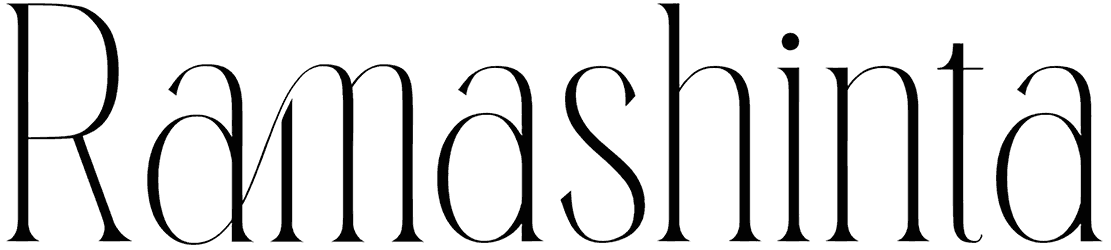
Ramashinta Font
If you want to pass on the message directly to the audience without any cover, don’t leave Ramashinta’s place empty in your collection. This serif font has a classic and clear appearance that fits well in any format.
As a result, it doesn’t matter if you are designing a poster for a new movie or you want to make a cover for a romantic book. This font can always be ready to convey a sense of confidence, experience, and power.